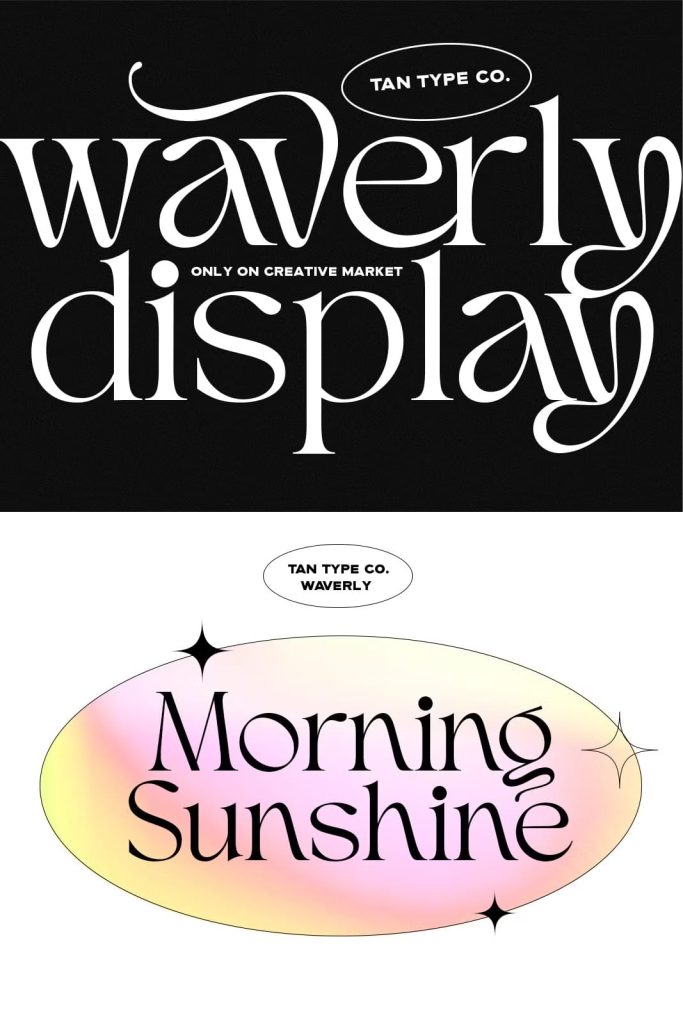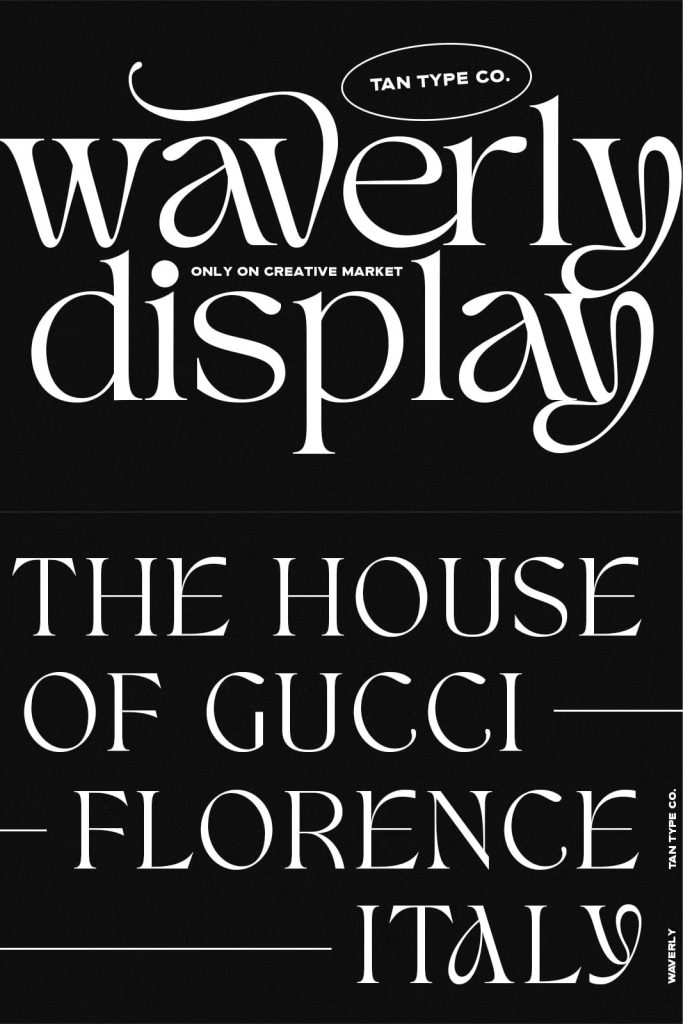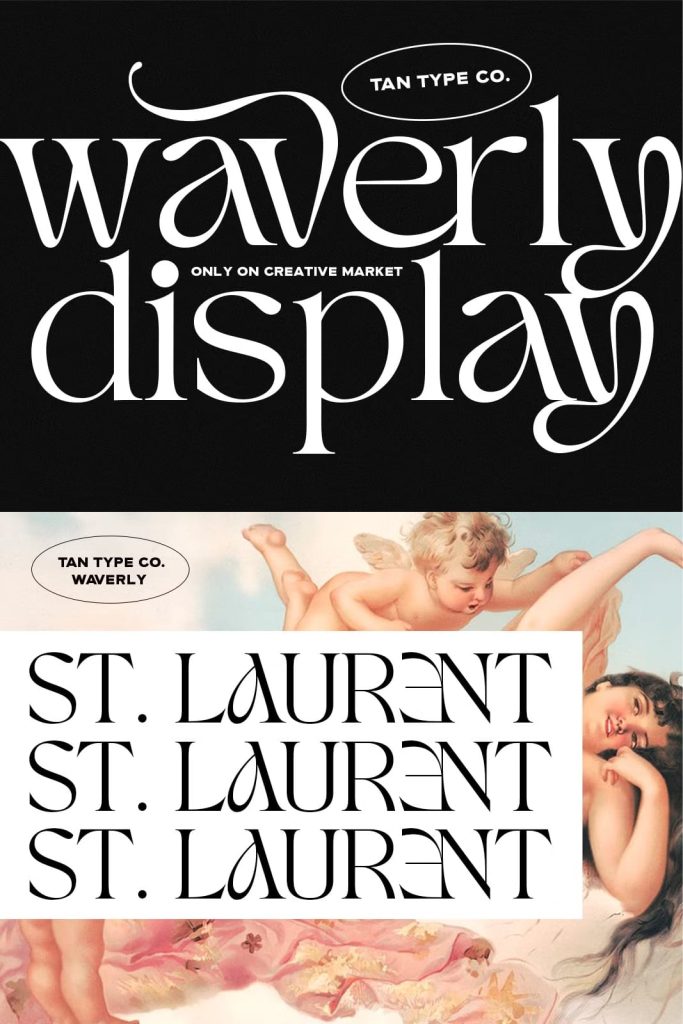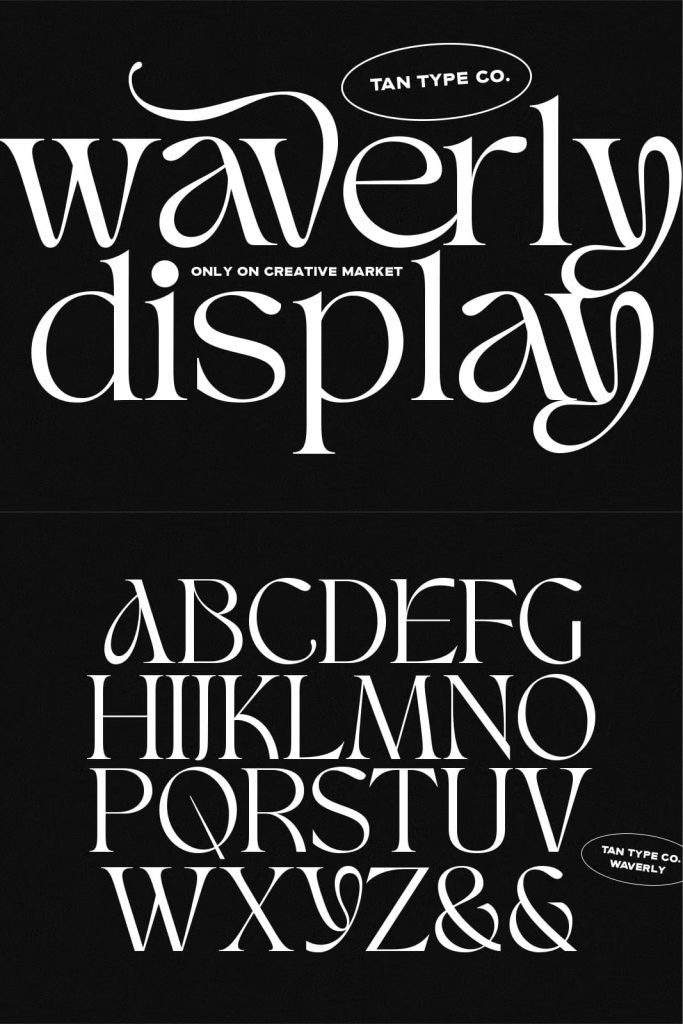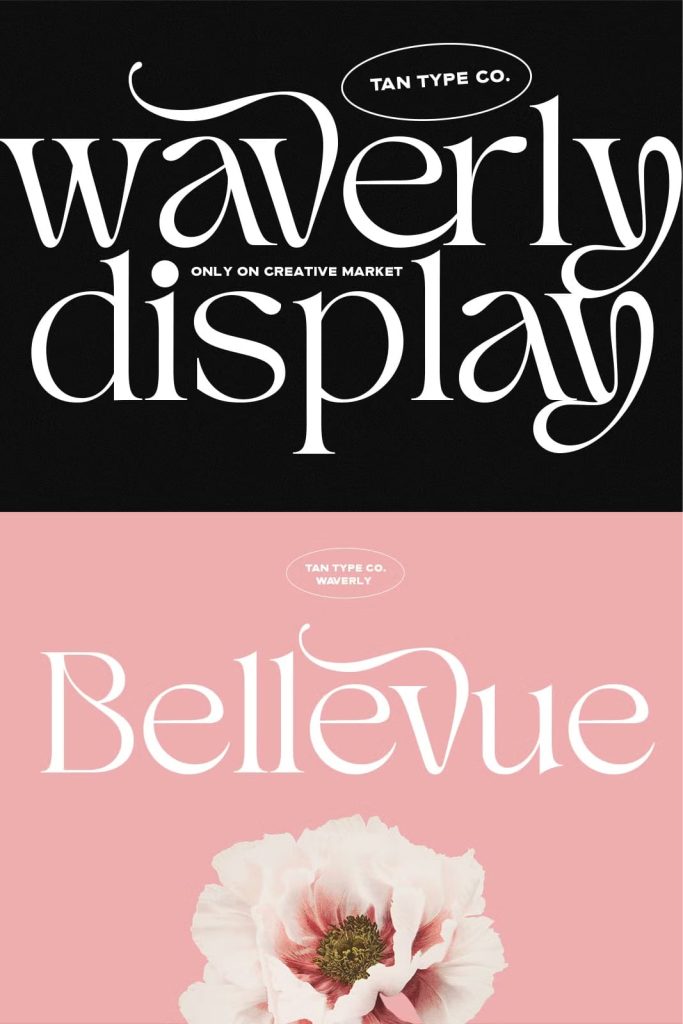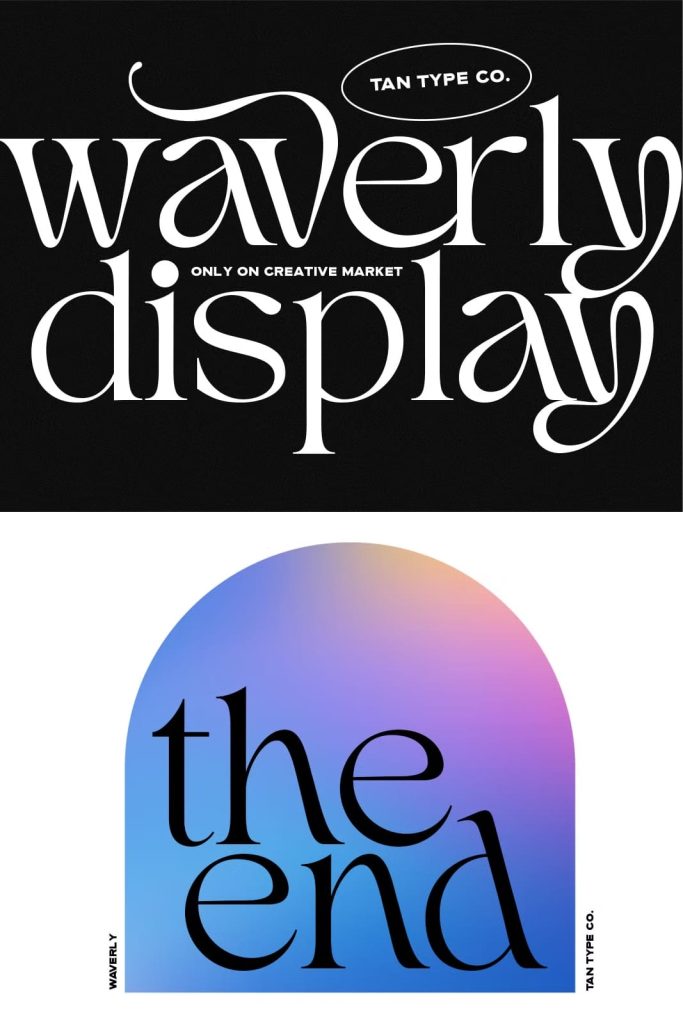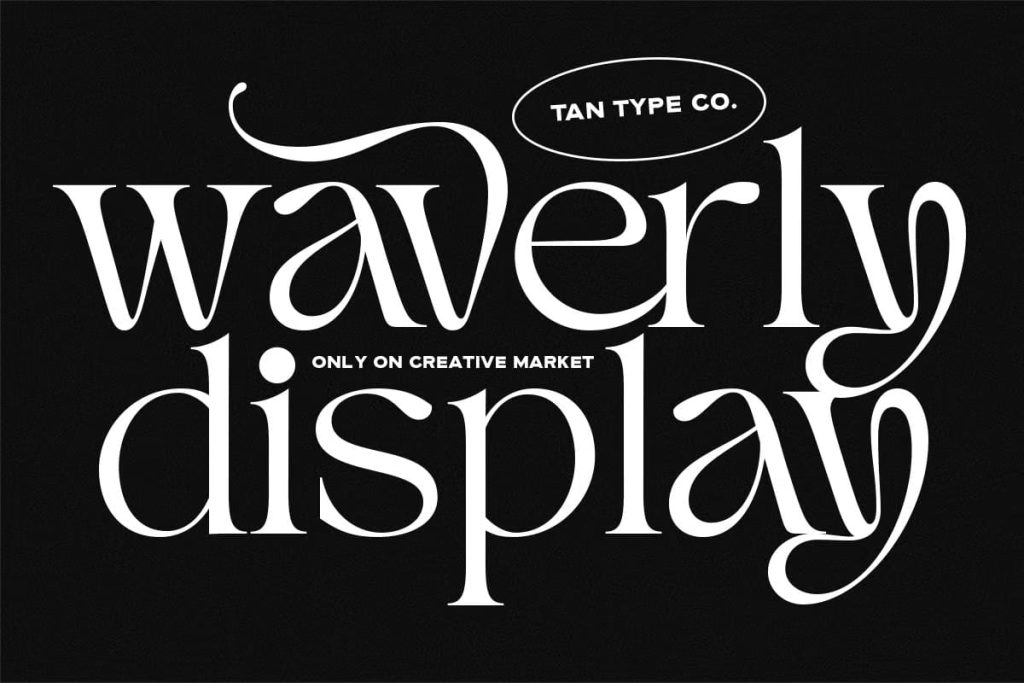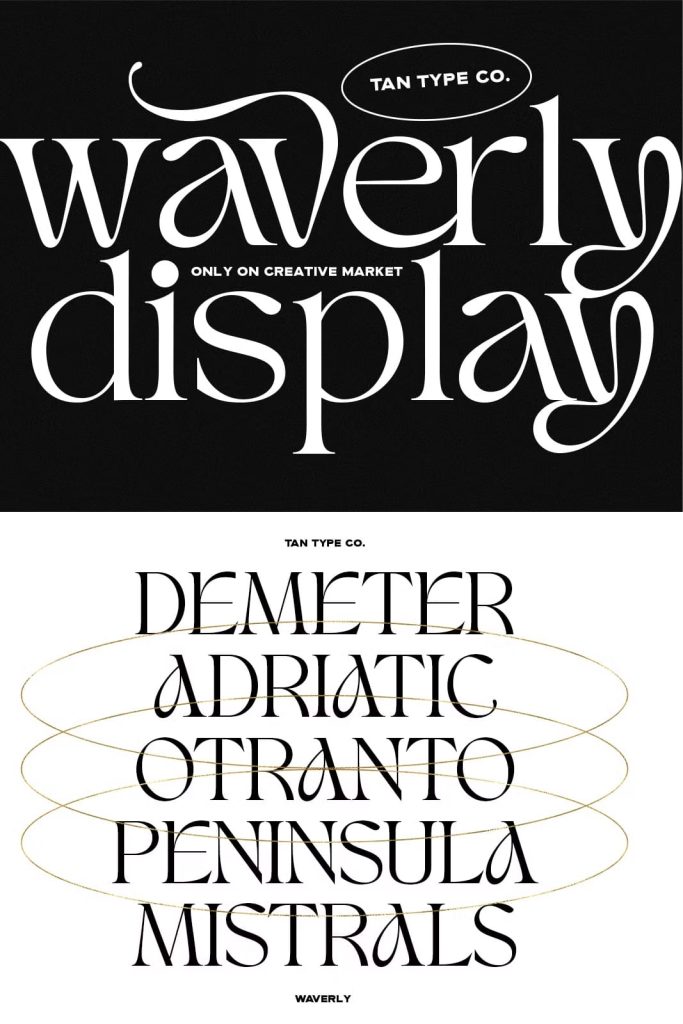
TAN Waverly Serif Font – Elegant, Graceful, and Full of Character
TAN Waverly is an elegant serif typeface that beautifully blends sophistication with personality. Designed to exude class and refinement, this font brings a perfect balance of traditional serif elegance and modern creativity. Its thoughtful design, graceful letterforms, and subtle quirks make it ideal for projects that require both distinction and warmth. Whether you are creating logos, editorial layouts, or branding materials, TAN Waverly transforms every word into a statement of style.
A Refined Serif Typeface with Unique Personality
At first glance, TAN Waverly impresses with its graceful structure and flowing shapes. But look closer, and you’ll find the charming details that give it life—gentle curves, balanced contrast, and distinctive ligatures that create seamless connections between letters. These characteristics add rhythm and movement to your typography, giving your text a more natural, expressive feel. TAN Waverly captures the best of both worlds: the timeless charm of classical serifs and the creativity of contemporary design.
This typeface was crafted for designers who want to go beyond minimalism. Each stroke carries subtle variations that keep your layout engaging while maintaining readability. Its design makes it suitable for both display use and body text, ensuring consistent visual harmony across different applications.
Abundant Ligatures and Glyph Choices for Endless Creativity
One of TAN Waverly’s most defining features is its extensive collection of ligatures and alternate glyphs. These allow you to personalize your typography and make every design feel truly custom. From elegant letter pairings to ornamental alternates, these features empower you to craft unique compositions that reflect your design vision.
The ligatures connect letters fluidly, making headlines and logotypes look effortlessly cohesive. Meanwhile, the glyph variations provide multiple stylistic options—whether you want your text to appear formal and refined or soft and artistic. With TAN Waverly, every project becomes a canvas for creative exploration.
Perfect for Editorials, Branding, and Elegant Design
TAN Waverly is a font that shines in editorial design, branding identities, and high-end print materials. Its elegant serifs and carefully considered spacing make it ideal for magazine covers, fashion layouts, and book titles. When used in logos or packaging, it instantly conveys luxury and sophistication. Its graceful tone works beautifully across industries—from fashion and beauty to hospitality, lifestyle, and fine arts.
Designers love TAN Waverly for its ability to adapt. Whether paired with a modern sans serif or used as the star of the composition, it maintains harmony and visual appeal. Its timeless elegance ensures that your designs remain stylish and relevant for years to come.
Why Choose TAN Waverly for Your Next Design Project
- Elegant Serif Design: Features refined letterforms and balanced proportions for a graceful appearance.
- Extensive Ligatures: Includes unique letter connections for fluid and decorative typography.
- Alternate Glyphs: Offers stylistic variations for a personalized touch.
- Highly Versatile: Perfect for branding, editorials, packaging, and digital content.
- Readable and Sophisticated: Maintains clarity even in detailed compositions.
Infuse Your Designs with Grace and Subtle Charm
Every project deserves a font that elevates its message, and TAN Waverly does exactly that. It enhances your typography with quiet confidence, transforming simple layouts into polished works of art. The delicate balance between structure and playfulness makes it suitable for both professional and artistic contexts. Whether you’re designing a minimalist logo or a full-scale branding campaign, TAN Waverly provides the tools to express elegance with individuality.
TAN Waverly Serif Font stands out as a typeface that celebrates refinement, versatility, and character. Its subtle quirks, wide glyph selection, and masterful ligatures make it a favorite among designers seeking both sophistication and creativity. With its blend of classical beauty and modern sensibility, TAN Waverly is more than just a font—it’s a statement of timeless style. Use it to craft captivating visuals that leave a lasting impression on every viewer.